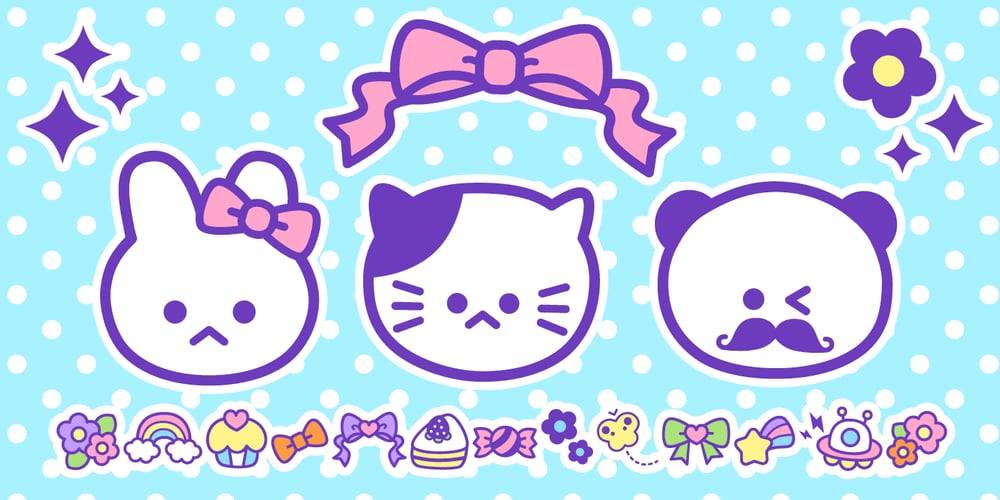
Omekashi Emoji Font Family was designed by Norio Kanisawa and published by Norio Kanisawa. Omekashi Emoji contains 1 styles and family package options. This is Emoji font(Dingbat), contains many cute motif like animals, heart, ribbon, foods, fashion goods. I think you can use it for decorate contents for children, and use web font as icon. You can use as it is, I think that you can paint the color inside. It might be interesting even if you hang a hat or put on a ribbon by combining several characters like a sample. I make it will be cute, and you use it with happy feeling, I will be happy if you think so. <「omekashiemoji」紹介文> 動物やハートやリボン、食べ物、ファッション小物などかわいいモチーフがたっぷりな絵文字フォントです。 子供向けコンテンツの装飾に使ったり、webフォントをアイコンとして使ってもいいんじゃないかなと思います。 そのまま使ってもいいですし、中に色を塗ってもいいと思います。サンプルのように数文字組み合わせて帽子を被せたり、リボンをつけたりしても面白いかもしれないです。 かわいくなるように、使って楽しい気分になれるようにとの思いを込めて作りました。 その思いが少しでも伝われば幸いです。 <スタイルカテゴリー> 絵文字、Dingbat <価格> 税抜1200円